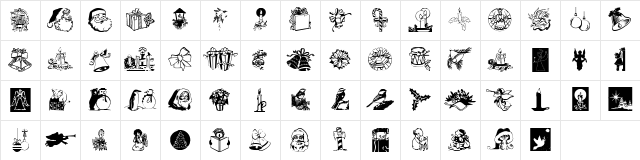
Noel Regular
Design Context for Noel
Noel is a composed and adaptable typeface that performs quietly and consistently across a wide range of design contexts.